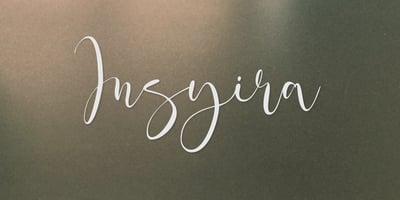
Insyira
Insyira font
Insyira Font Family was designed by Aldy Sidik and published by Epiclinez. Insyira contains 1 styles and family package options. Insyira is an elegant script font. This versatile script font has a wide spectrum of applications ranging from product branding to headlines. Add a romantic feel to your next project with this modern calligraphy-styled font. So what’s included : Basic Latin A-Z & a-z Numbers, symbols, and punctuations Ligatures Accented Characters : ÀÁÂÃÄÅÆÇÈÉÊËÌÍÎÏÑÒÓÔÕÖØŒŠÙÚÛÜŸÝŽàáâãäåæçèéêëìíîïñòóôõöøœšùúûüýÿžß Thank you